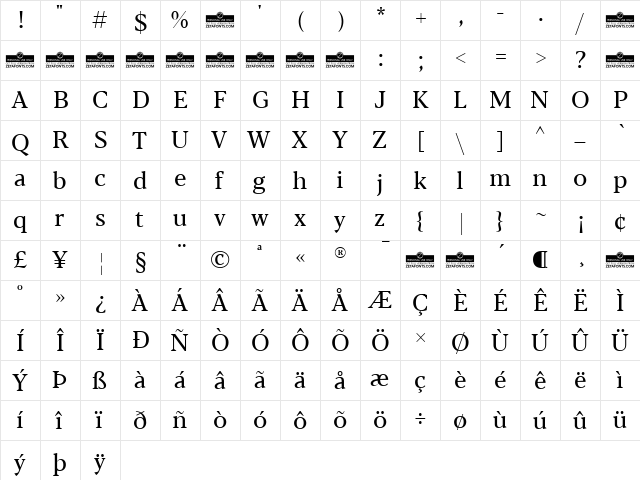
Blacker Text Regular
| Foundry | Cosimo Lorenzo Pancini & Francesco Canovaro |
| Designer | Cosimo Lorenzo Pancini & Francesco Canovaro |
Design Context for Blacker Text Typeface
Blacker Text takes a measured approach to typography — its balanced proportions and neutral character make it a reliable workhorse for both digital and print work.